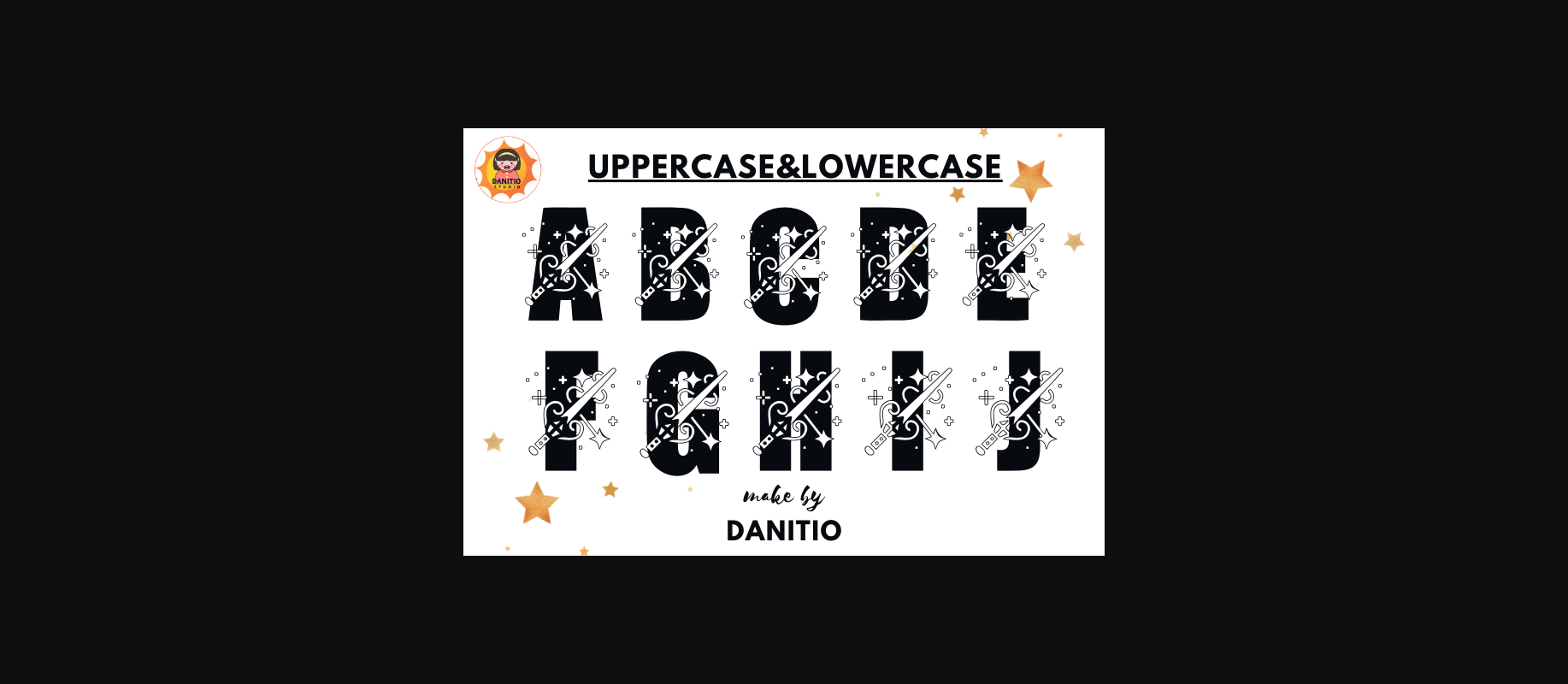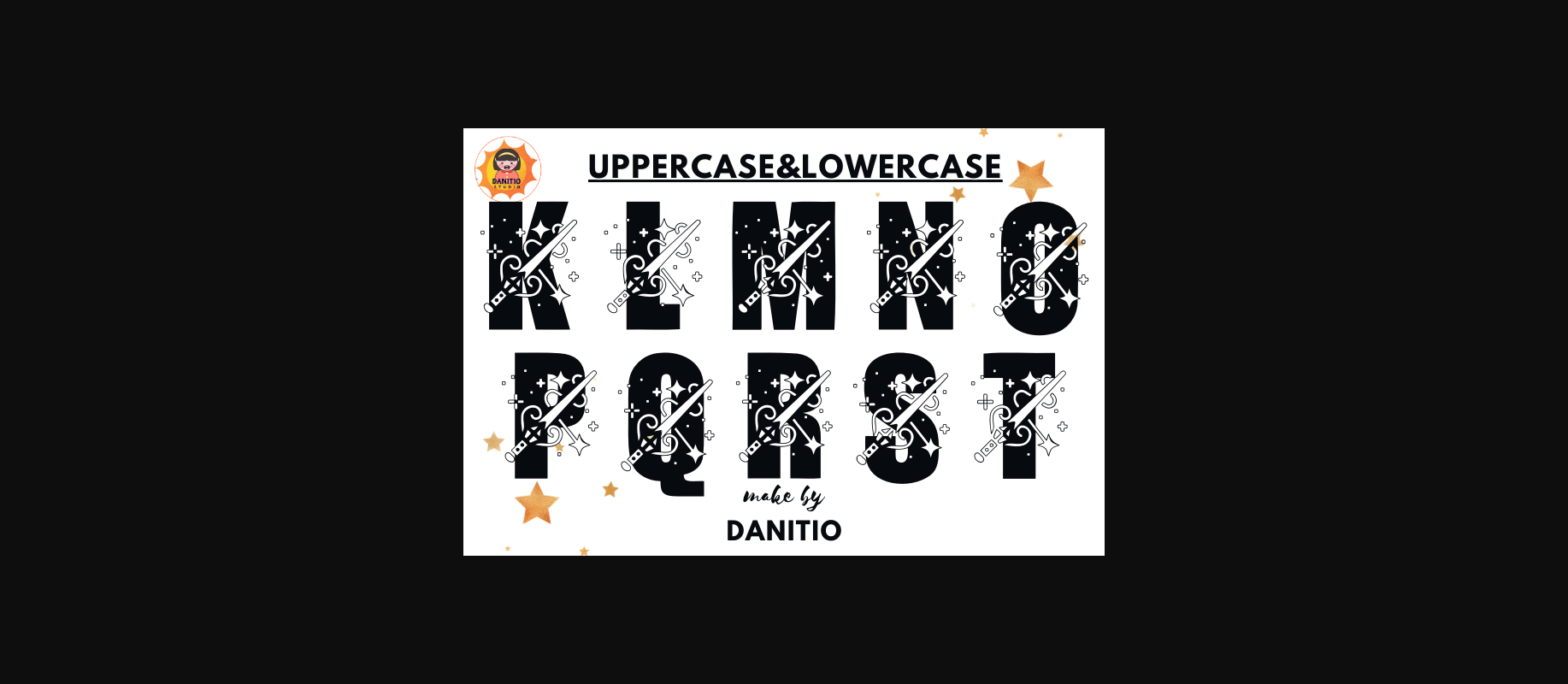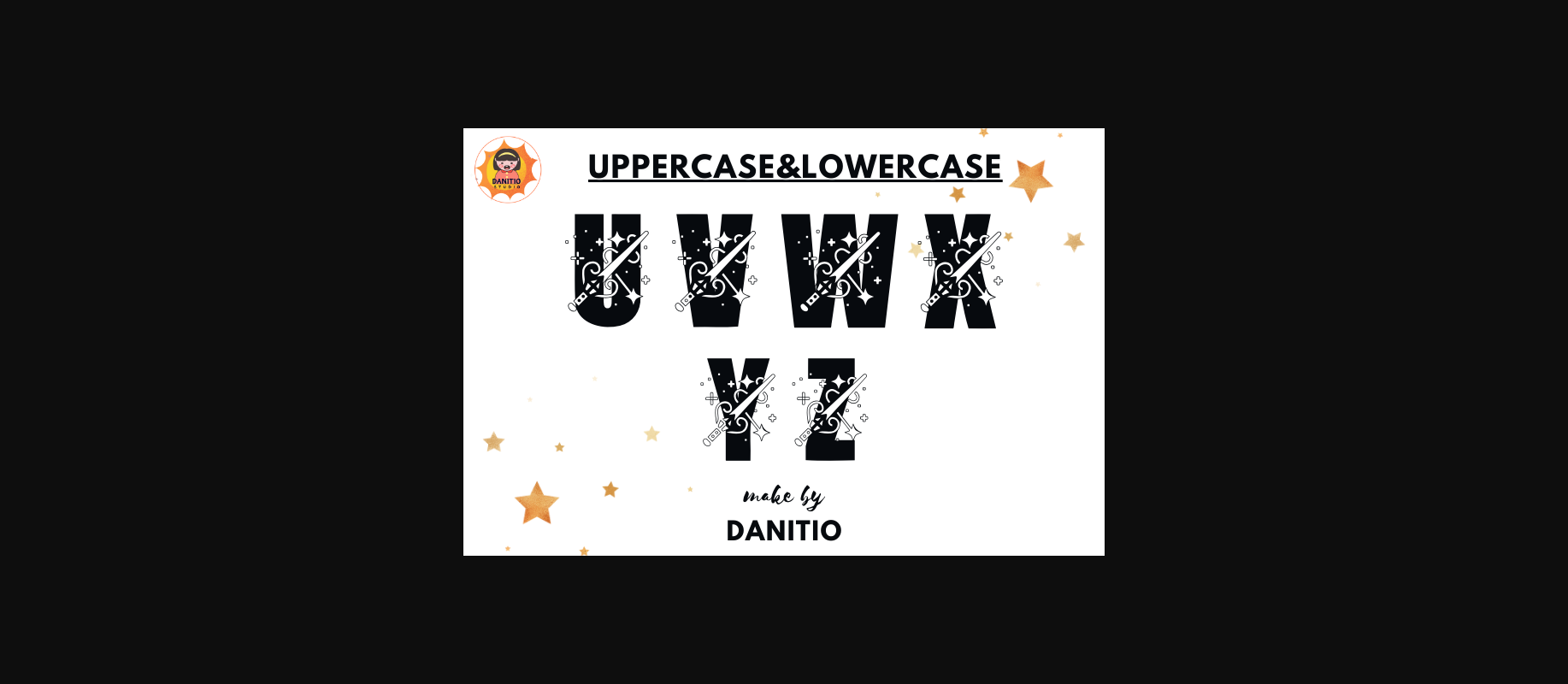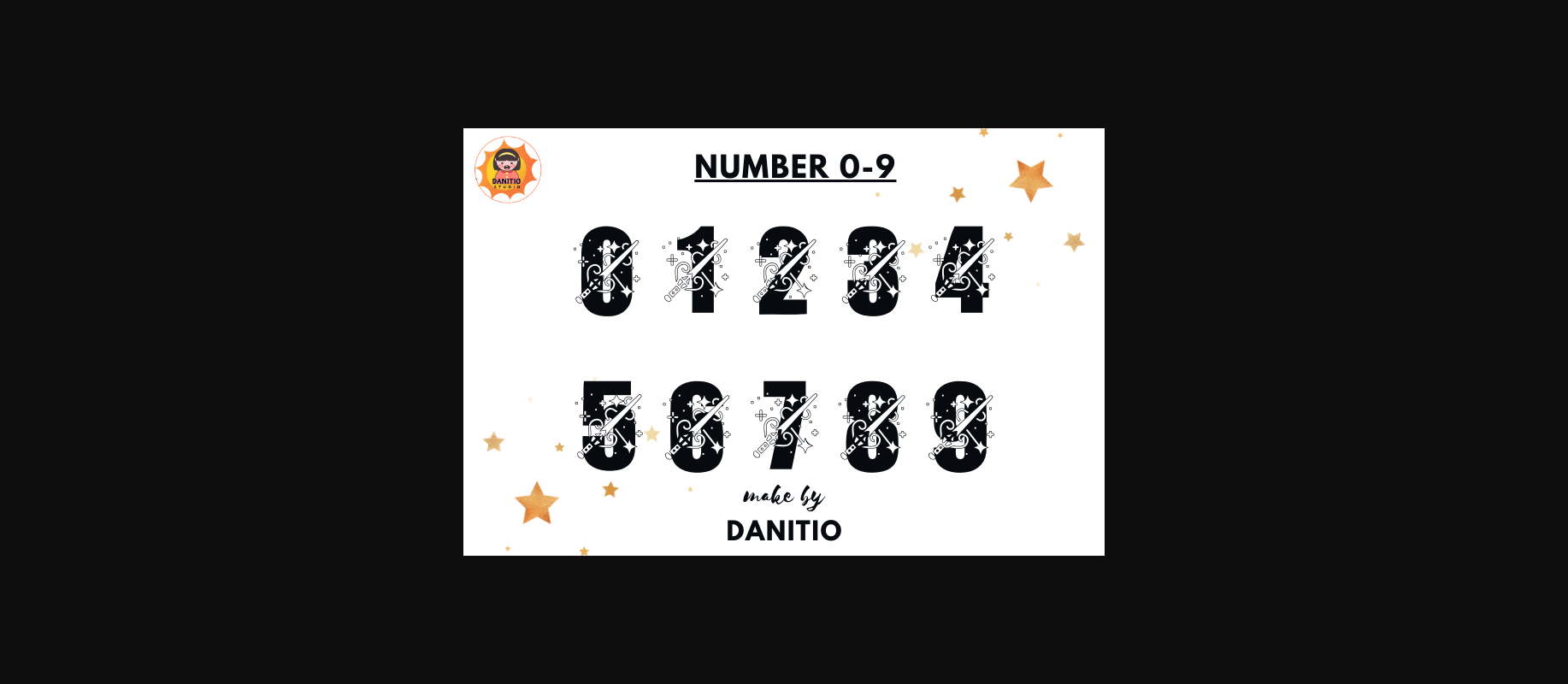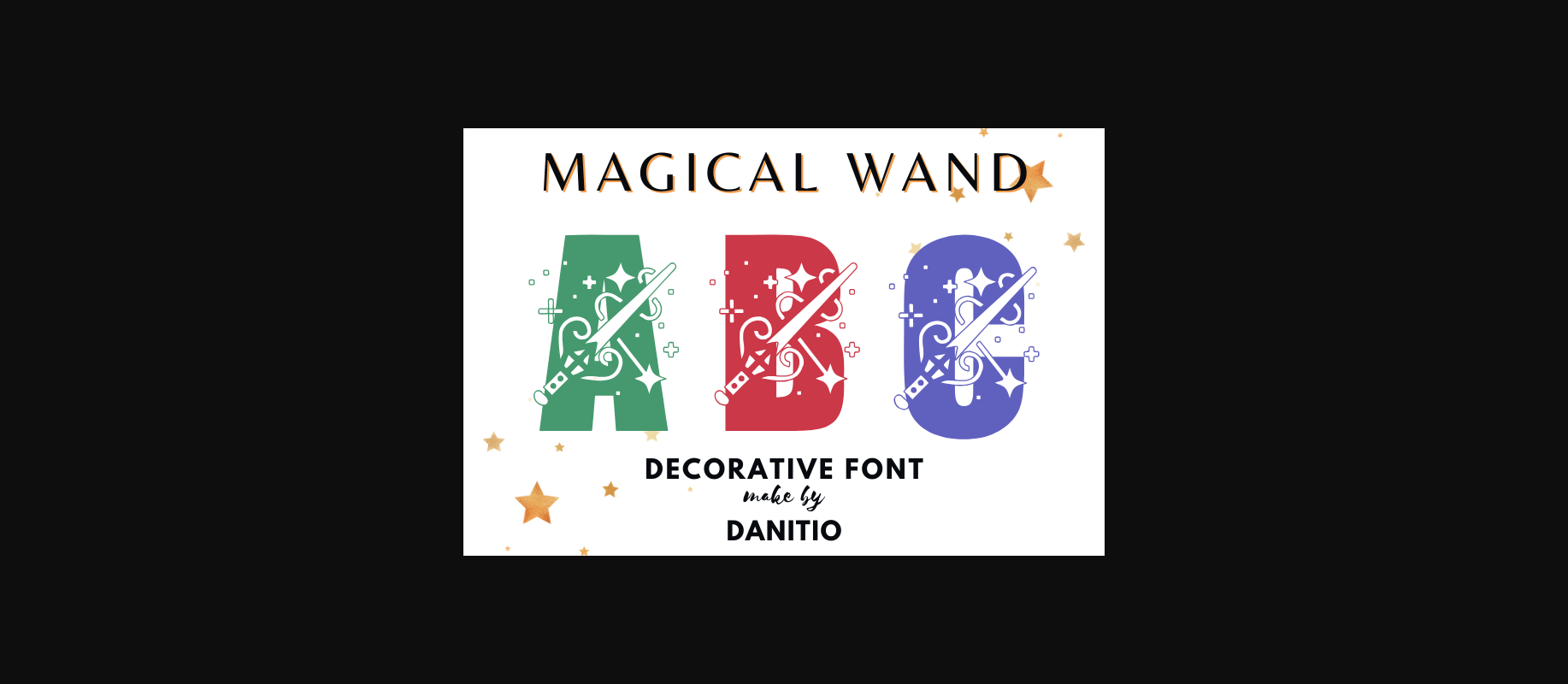
Magical Wand Font
About Magical Wand Font
The Magic Wand is a decorative font that combines letters with magic to shine which makes it cute to look unusual and cool at the same time. This style emphasizes cuteness in every design. Great for birthday cards, t-shirts, mugs, tote bags and other items that you deem appropriate.